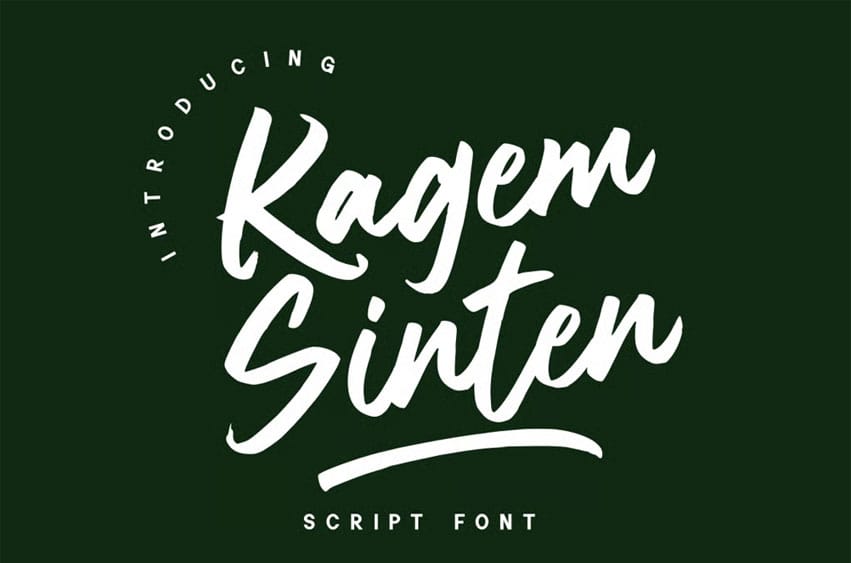
Kagem Sinten Font Script Font. It is suitable for flyers, posters, novels, letterheads, or any design requirements you want to be awesome.
It will certainly amaze your readers.